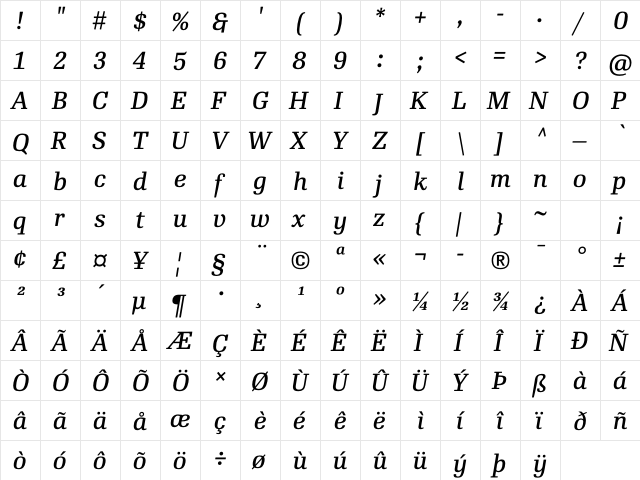
RePublic Text Regular Italic Font Preview
RePublic Text Regular Italic
Design Context for RePublic Text Typeface
RePublic Text offers clean, dependable letterforms without strong stylistic allegiance, making it a practical choice for designers who need flexibility. The dynamic lean of this cut emphasises speed and emphasis in any layout.
Pro Tip: Use RePublic Text for emphasis, pull quotes, and subheadings where its slanted energy can add rhythm to the layout.